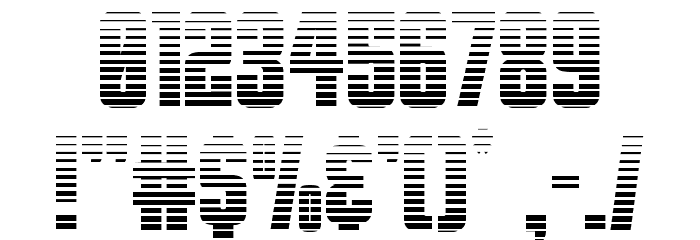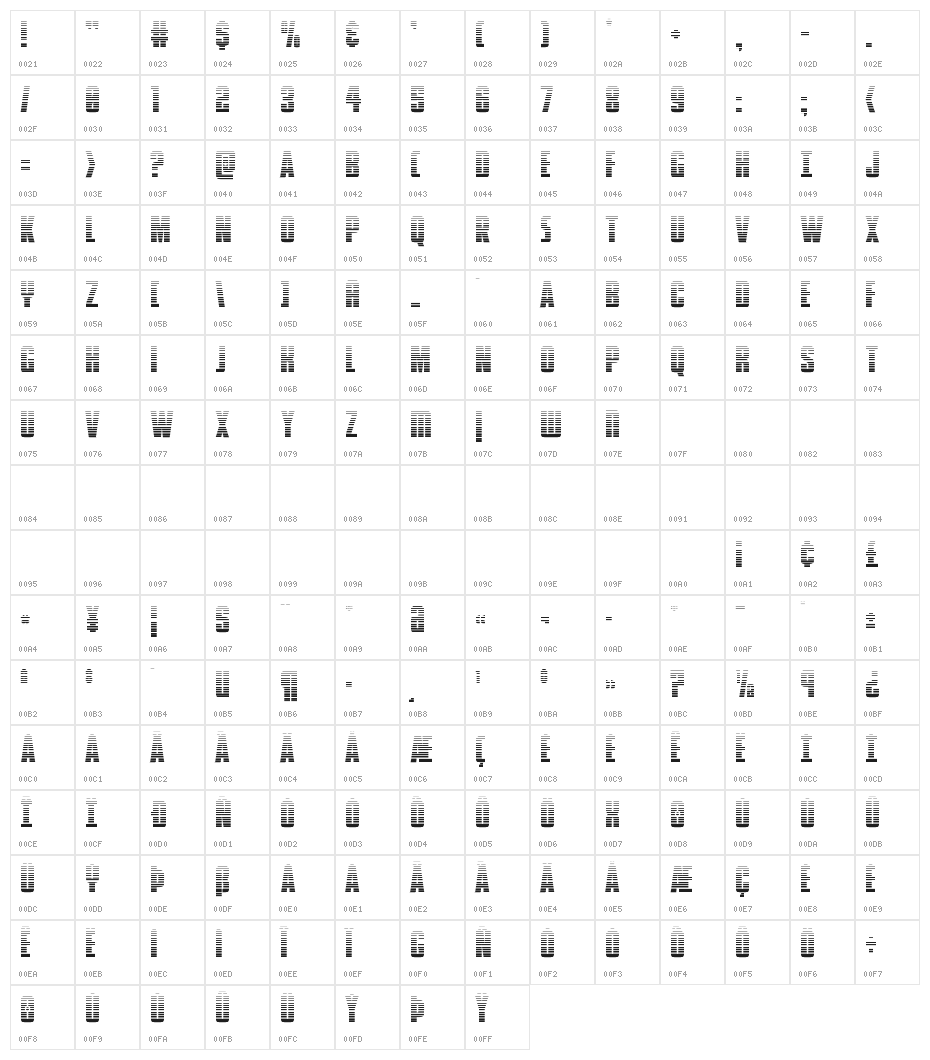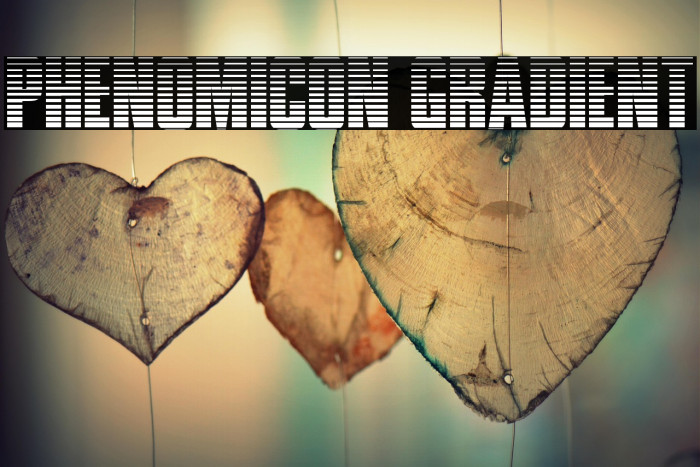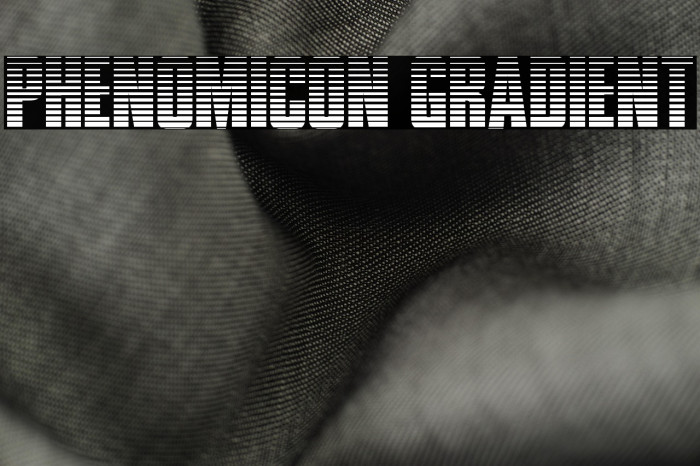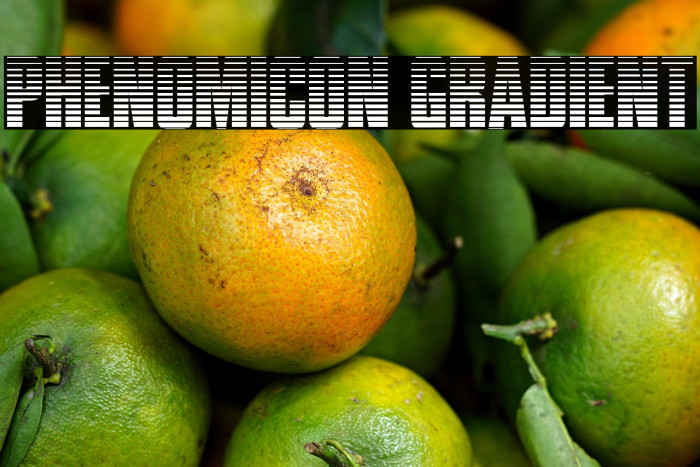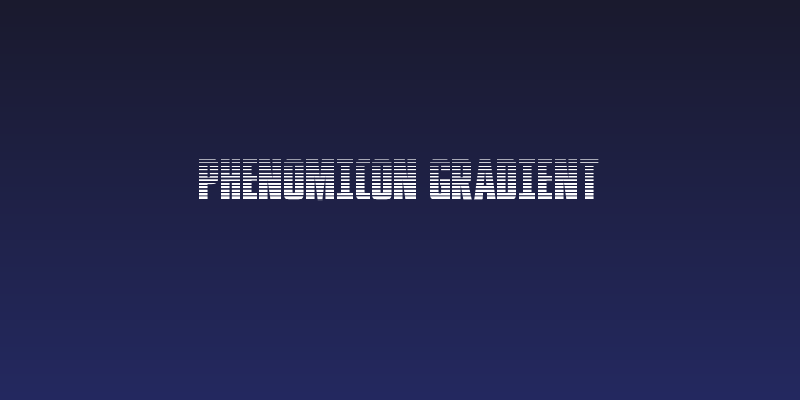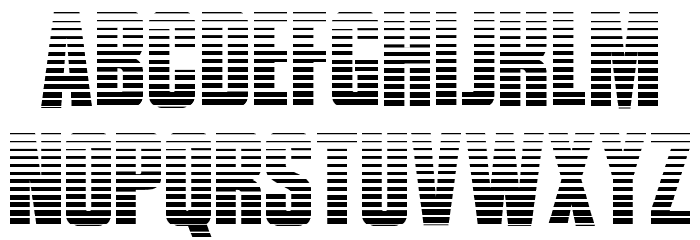
Phenomicon Gradient Font
Phenomicon Gradient Description
This font features a unique gradient effect within each character, creating a striking visual impact. The design incorporates horizontal lines that vary in thickness, giving the appearance of a gradient from top to bottom. The characters are bold and wide, with a modern and futuristic aesthetic. This style is particularly eye-catching and can be used to draw attention to specific text elements. The uppercase and lowercase letters, as well as numbers and special characters, maintain a consistent design, ensuring a cohesive look across different text elements.
| Proposed Projects | Ideal for posters, headlines, branding, and digital media where a bold statement is needed. |